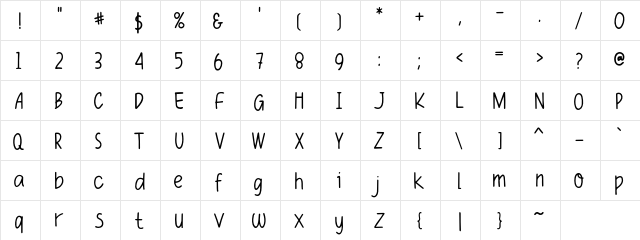
Funiko Regular
Design Context for Funiko Typeface
Funiko trades formality for fun, with bouncy, characterful letterforms that bring warmth and energy to any project.
Font Pairing: Pairs well with a rounded or humanist sans for body copy, maintaining the friendly tone without relying on Funiko to carry extended reading.
Pro Tip: Avoid using Funiko for long passages of text — it works best for headlines, labels, and short calls to action.